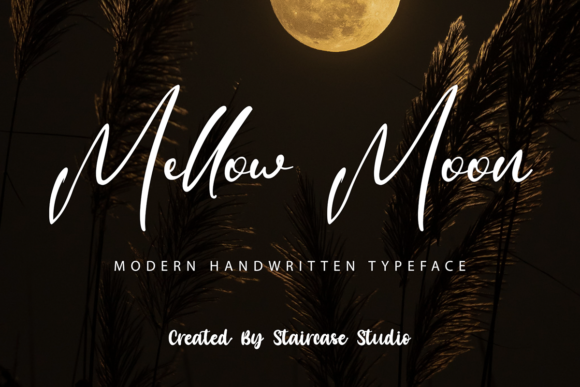
Introducing Mellow Moon – a modern script font, ready to add a touch of elegance to your creative projects. Its beautiful curves and flowing lines make it an instant favorite for branding, logos, posters, and any design that calls for a touch of sophistication.
Imagine your designs adorned with the graceful strokes of Mellow Moon, drawing attention to every word and captivating your audience with its timeless appeal. Its versatility knows no bounds, from elegant wedding invitations to eye-catching social media posts, Mellow Moon will effortlessly elevate your creations.
Discover the charm within the details of Mellow Moon. Its meticulously crafted letters and numbers lend an air of sophistication to any project, ensuring that your designs stand out from the crowd. Whether you're creating a stunning logotype or adding a touch of flair to your digital art, Mellow Moon is the perfect choice for those seeking a font that truly shines.
Unleash your creativity and elevate your designs to new heights with Mellow Moon, the ultimate font for those who dare to make their mark. Its enchanting characters will leave a lasting impression, captivating your audience and leaving them eager for more.
Embrace the beauty of typography with Mellow Moon and let your imagination run wild. The possibilities are endless, so dive into the world of design and create something truly unforgettable.